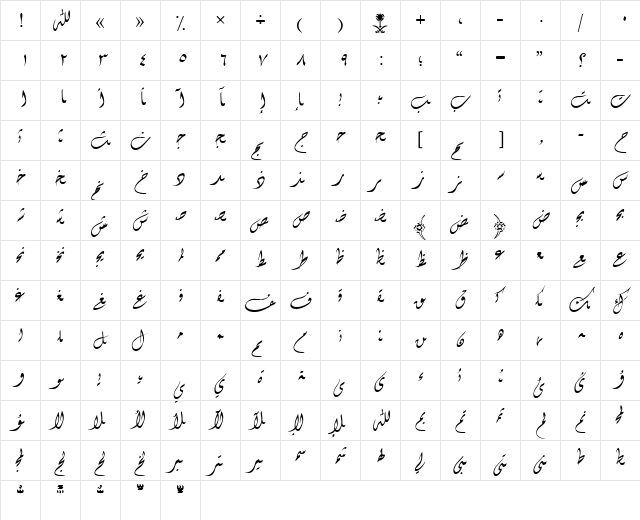
AYM Diwany 1 S_U normal.1 rmal.
Design Context for AYM Diwany 1 S_U normal.1 Typeface
AYM Diwany 1 S_U normal.1 is a composed and adaptable typeface that performs quietly and consistently across a wide range of design contexts.